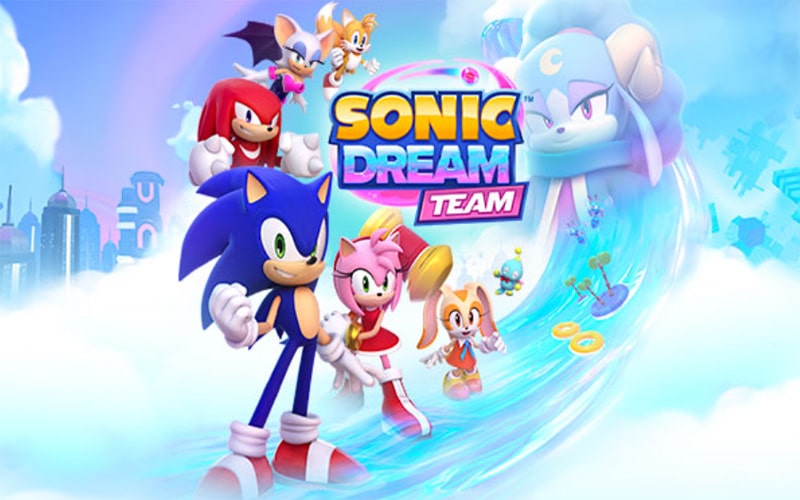
Sans Serif Logo Typeface
Sonic The Hedgehog Font is a sans-serif, logo typeface. It has clean and bold letters which give your designs a beautiful look. Katharine Worsley designed this font released by Linotype Design Studio.
This amazing game franchise was published by Sega and released its first game on 23 June 1991. This company creates different games such as Green Hill Zone, Sonic Adventure 2, and so on.
The font was created with the combination of two typefaces. So “Sonic” was created with Nise Sonic Sega Font and the word “The Hedgehog” was created with Helvetica Font.
So, this amazing typeface has come in 11 unique styles including regular, light, bold, shadow, and so on. It contains unique characters such as uppercase, lowercase, numbers, and punctuation numbers.
Sonic The Hedgehog Font
Font Name:Sonic The Hedgehog Font
Style:Logo, Sans-serif, Typeface
Font Designer:Katharine Worsley